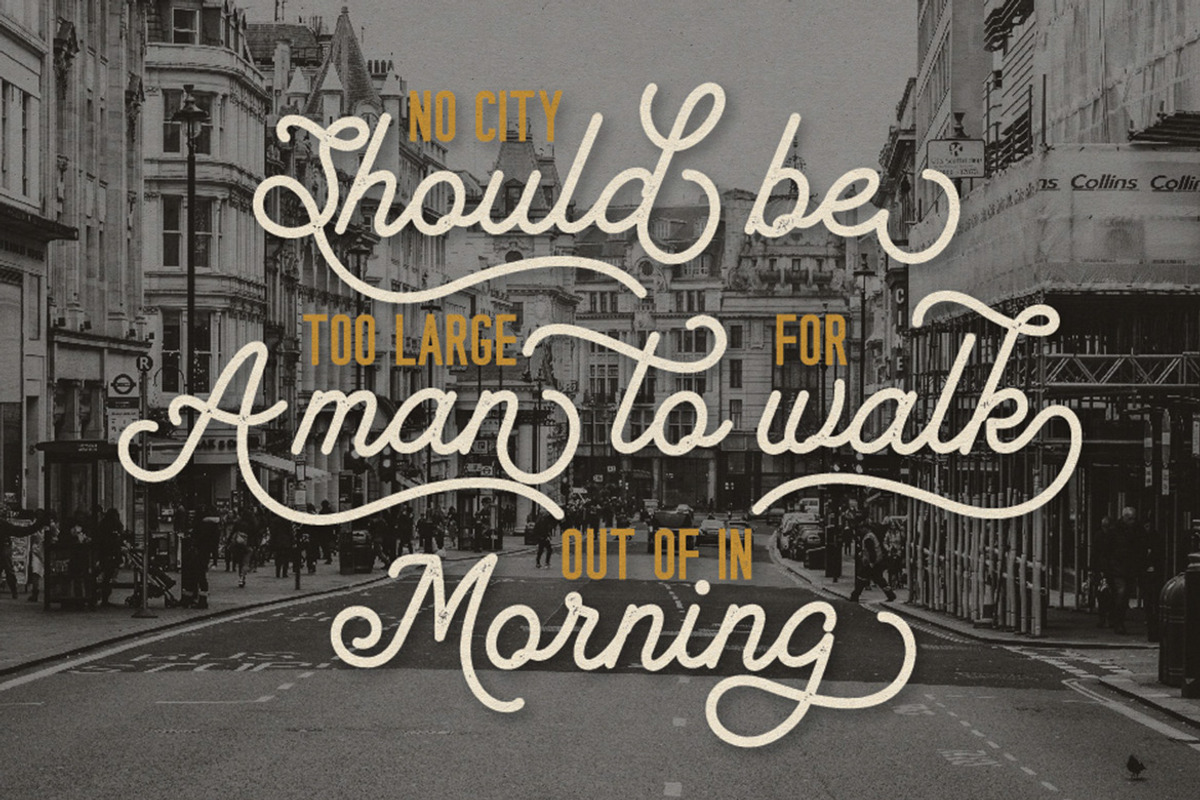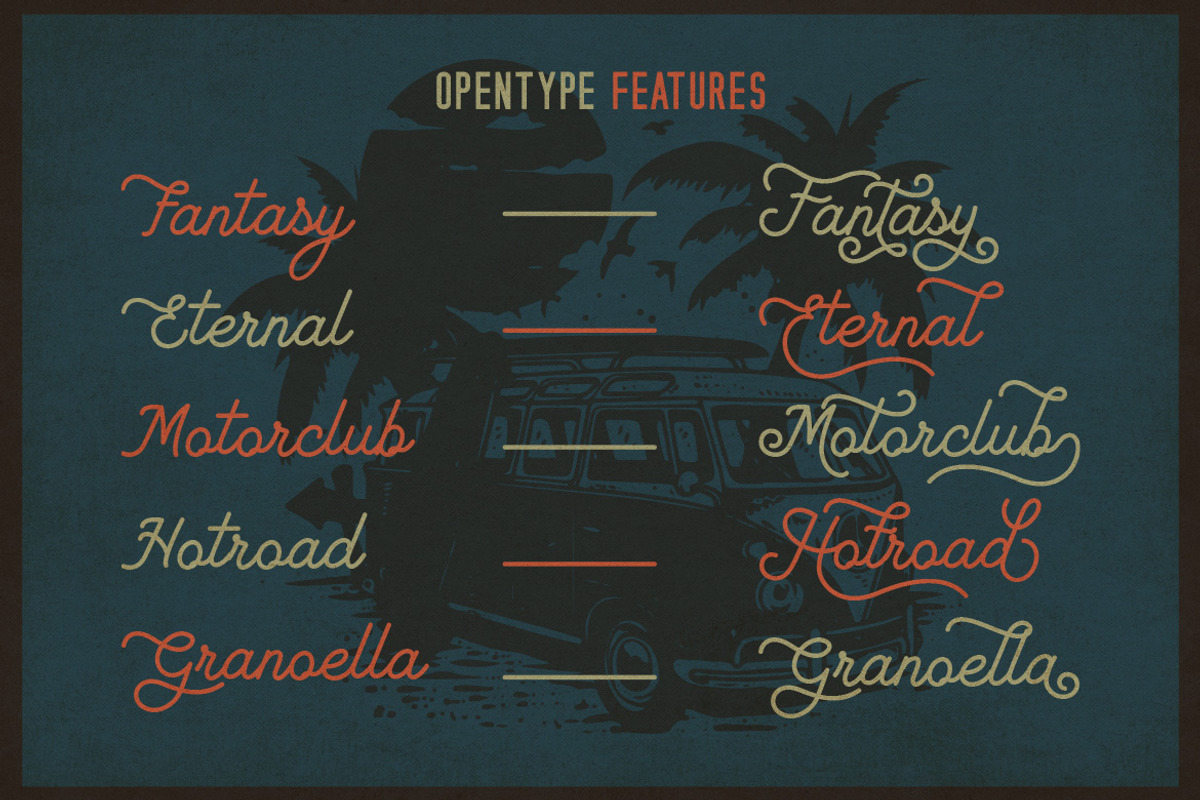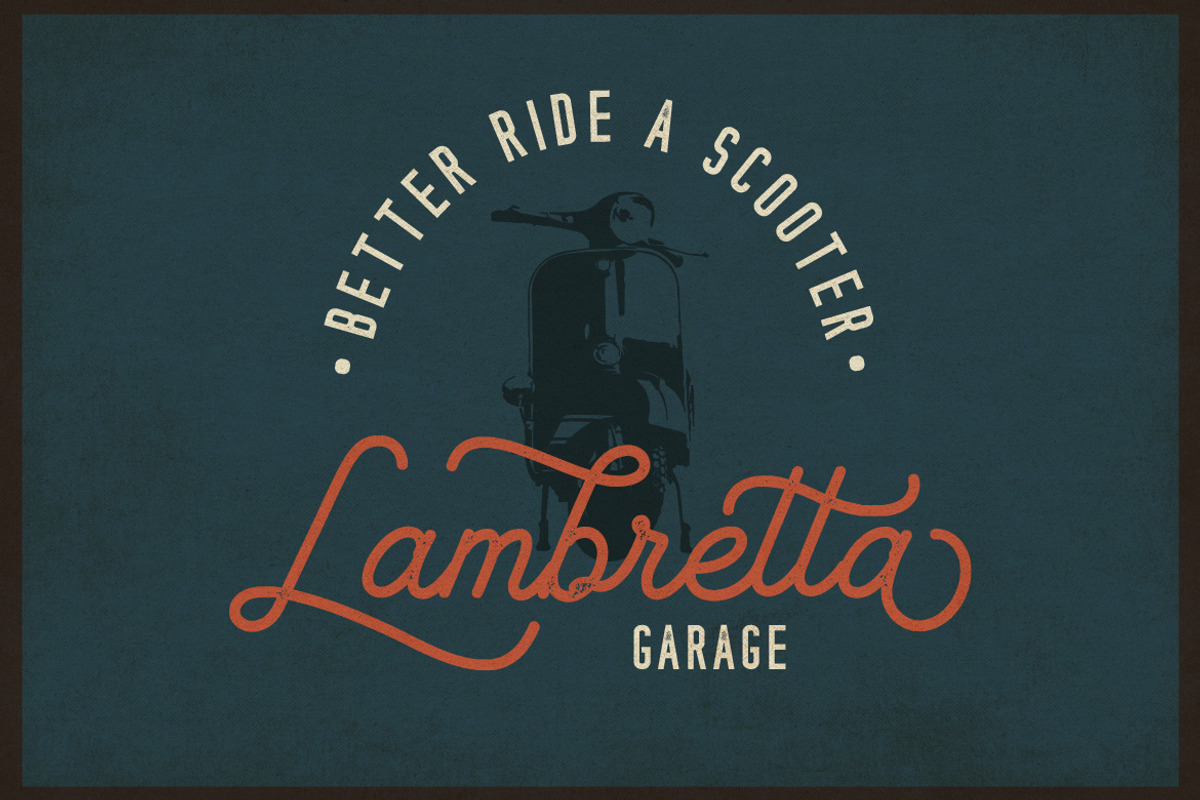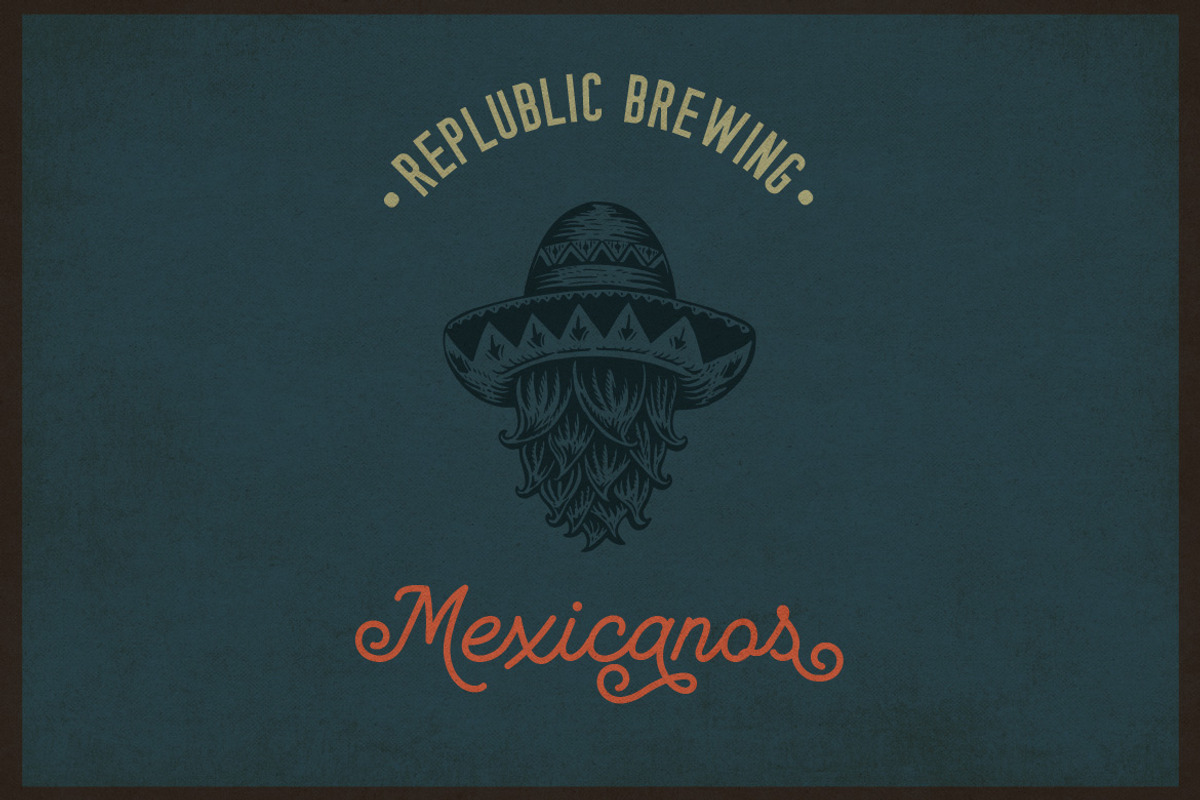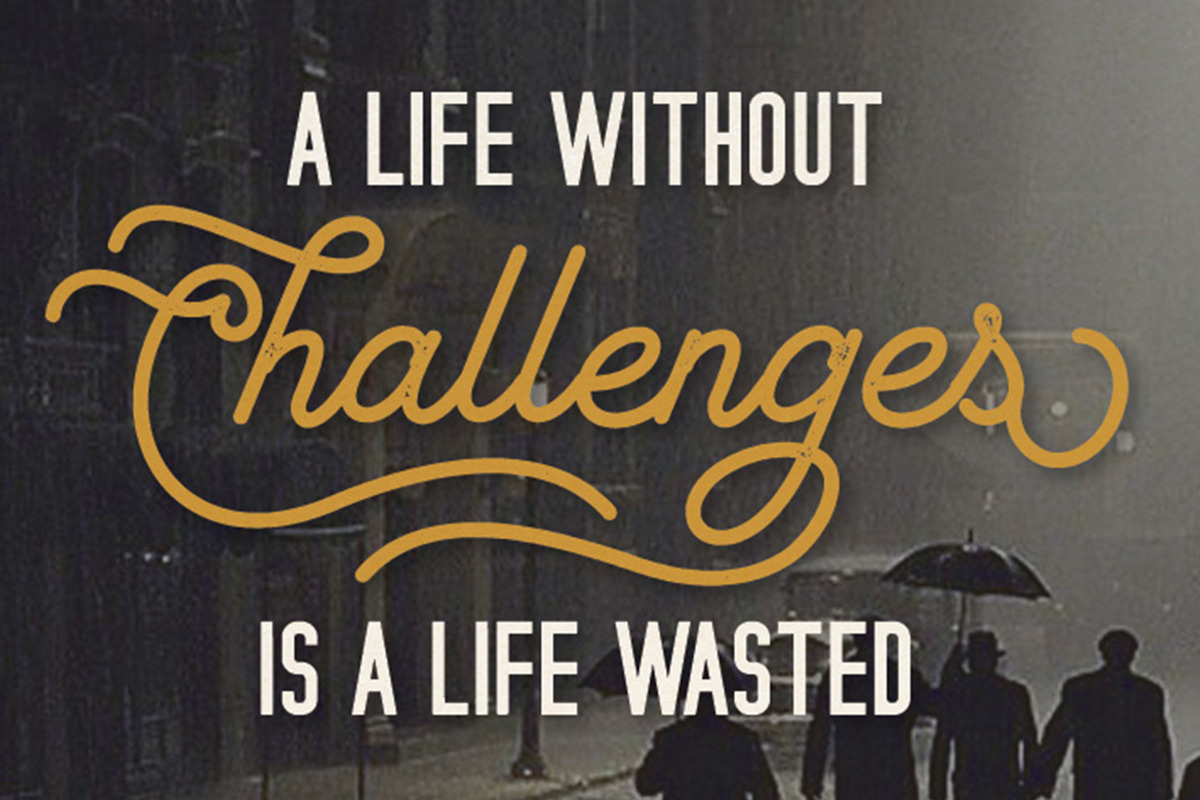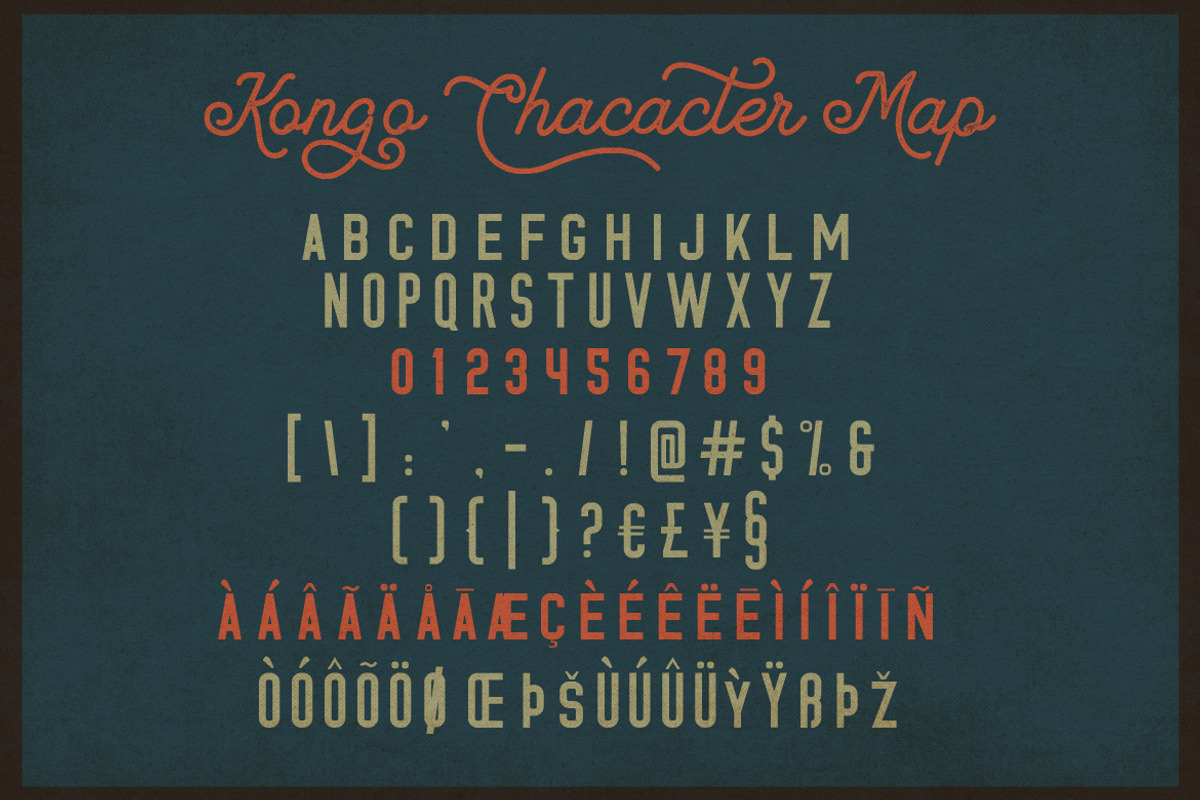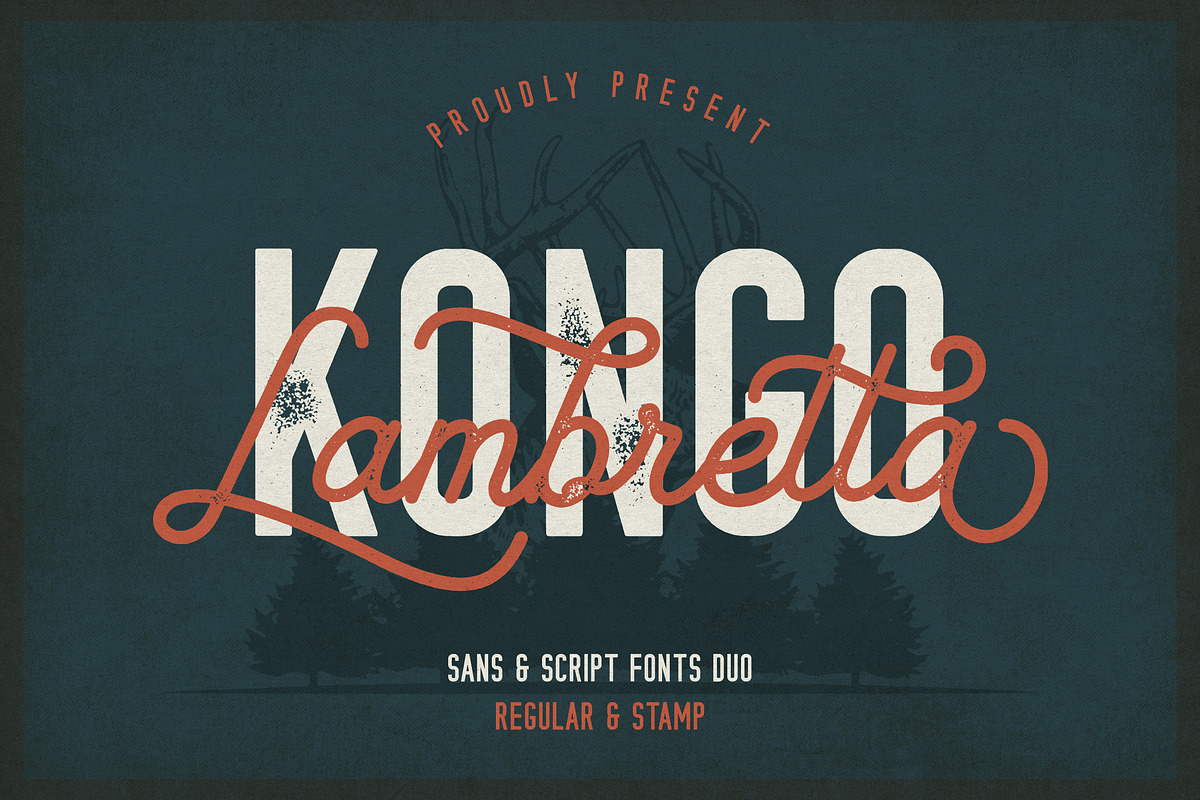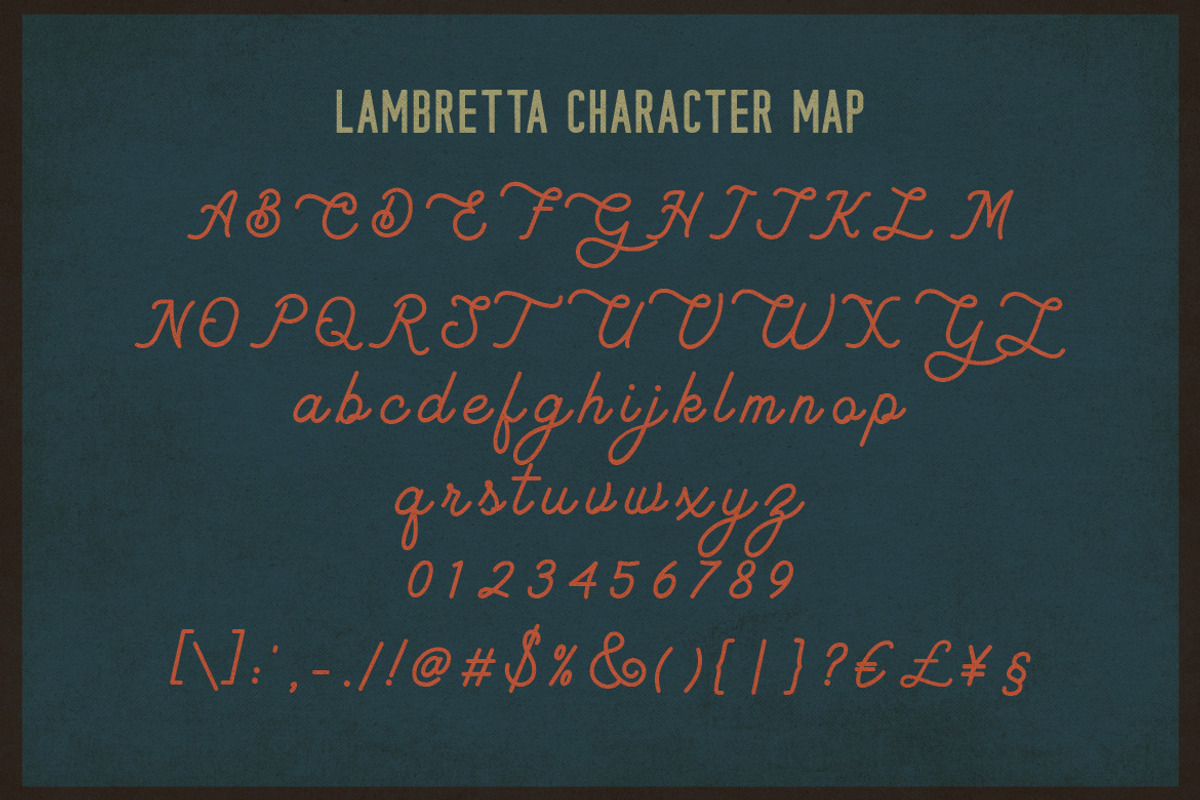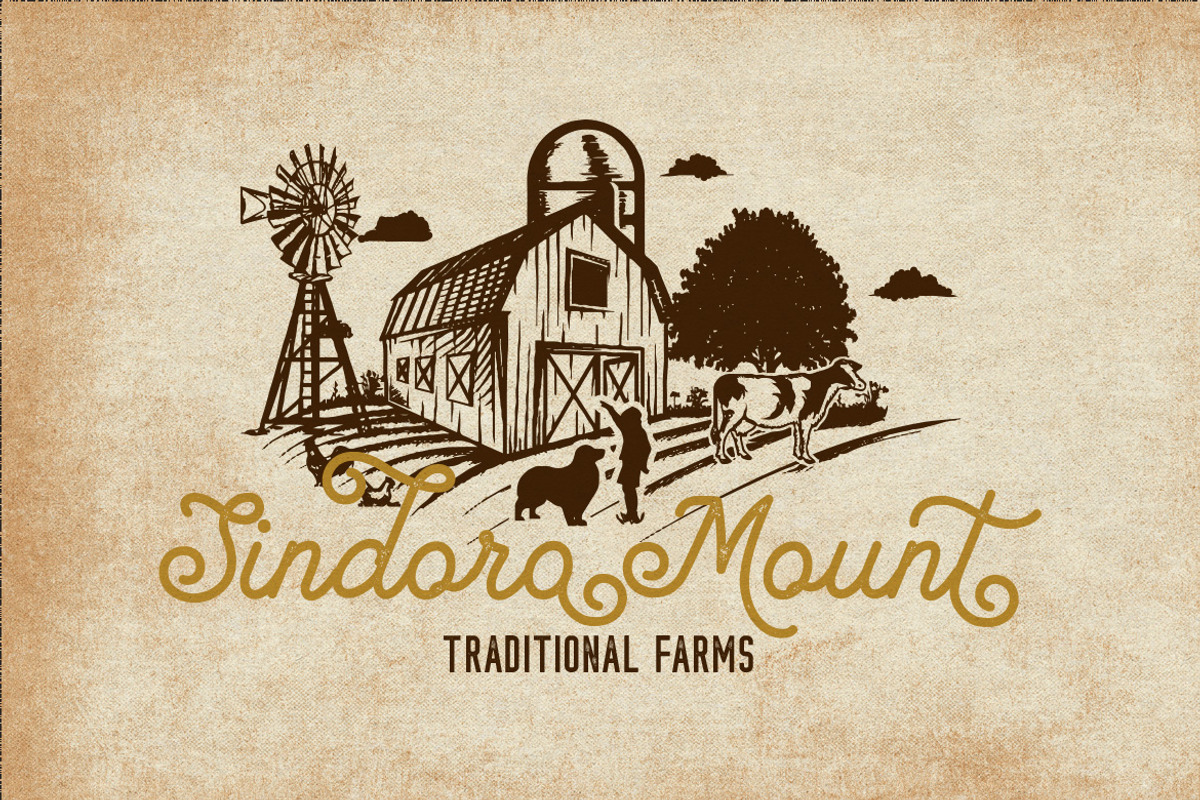
Lambretta Kongo Font Duo
The Lambretta Kongo is a beautiful font duo. The two includes fonts come in two styles; script and sans, and are equipped with regular en stamped versions. They can be combined together, but are also perfect on their own.